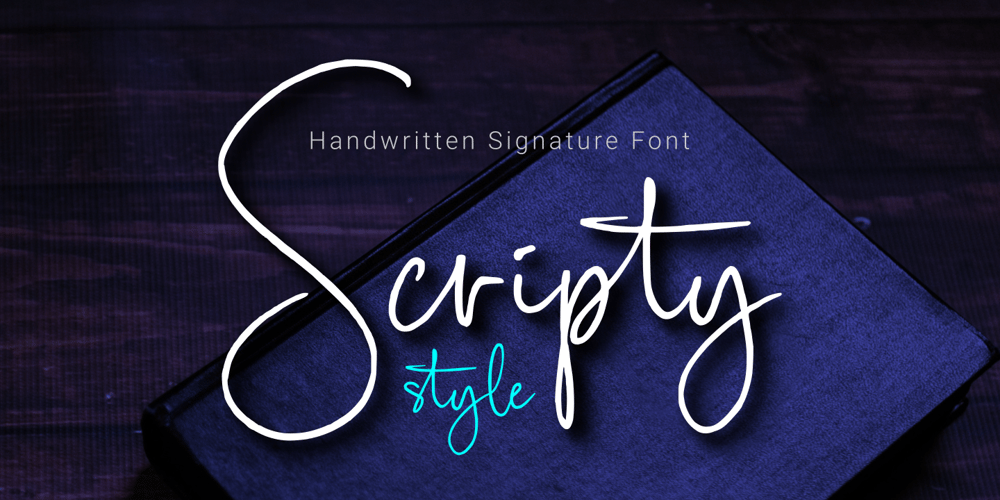
Scripty Style
Scripty Style font
Scripty Style Font Family was designed by Ahmad N. and published by MaxnorType. Scripty Style contains 1 styles and family package options. Scripty Style is a handwritten signature font. It has a natural handwritten style and is perfect for logos, branding, business cards, watermarks, and much more!